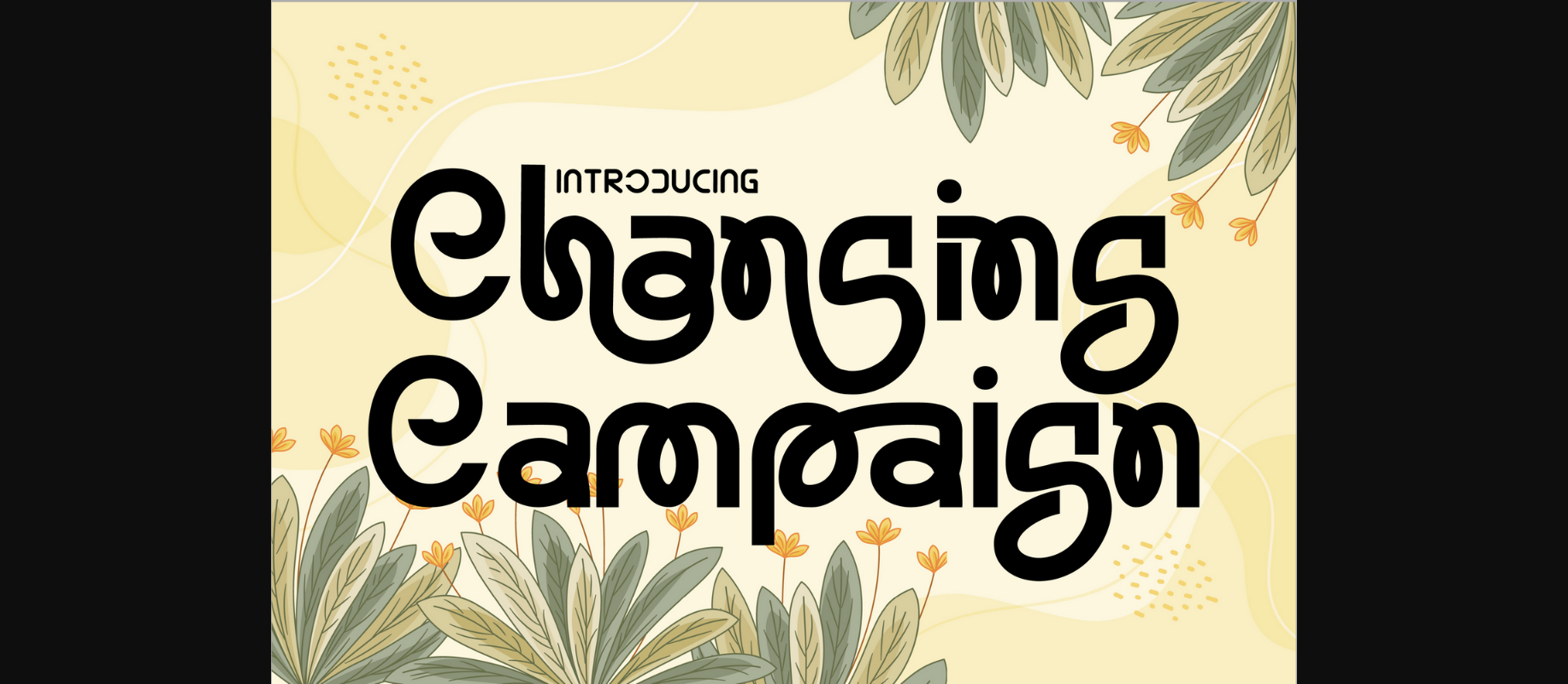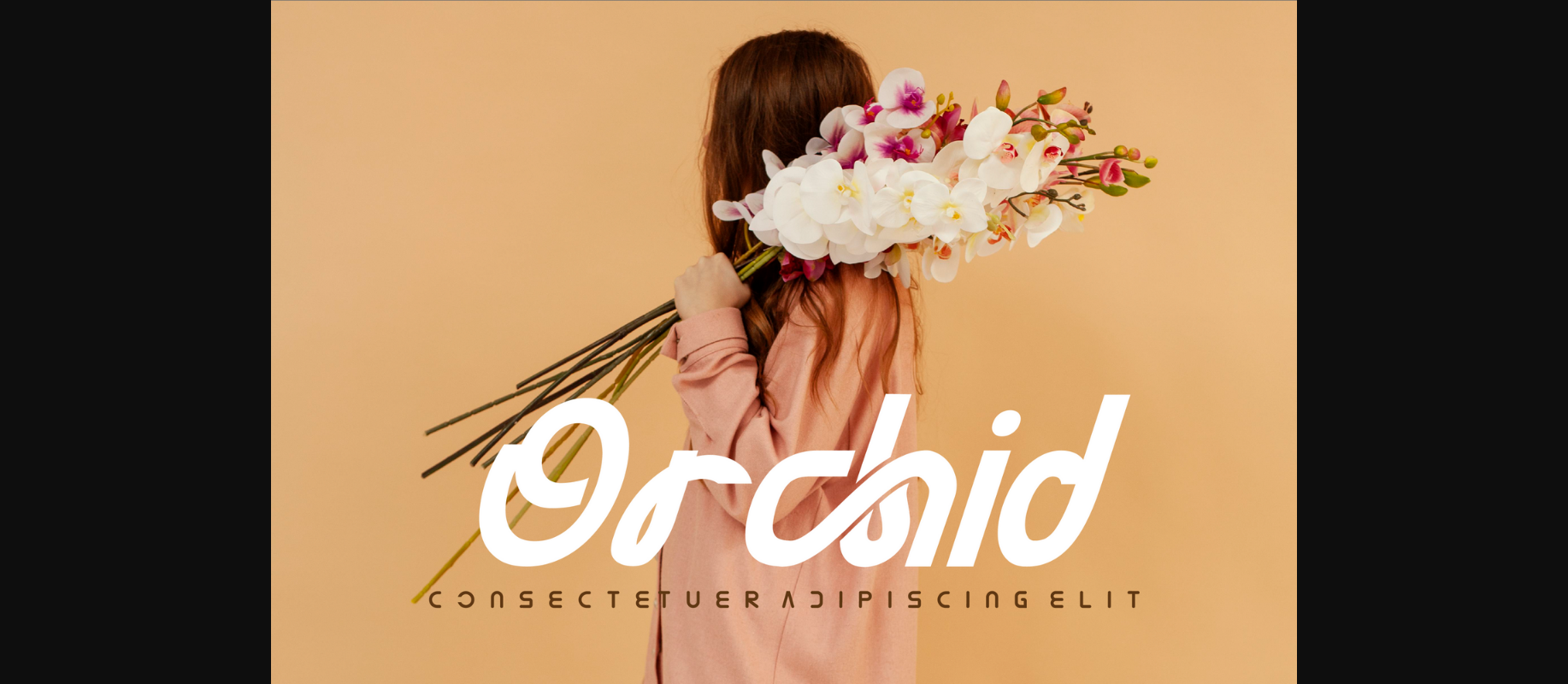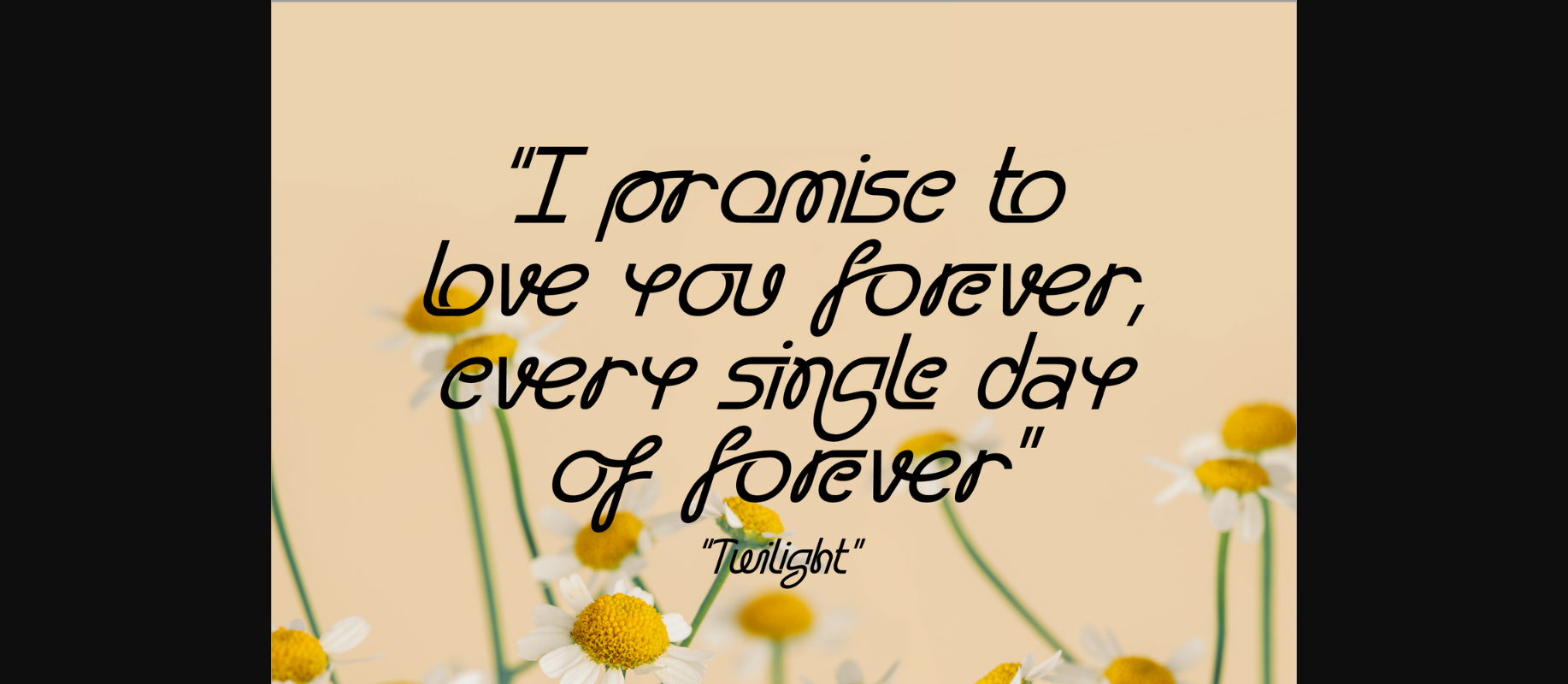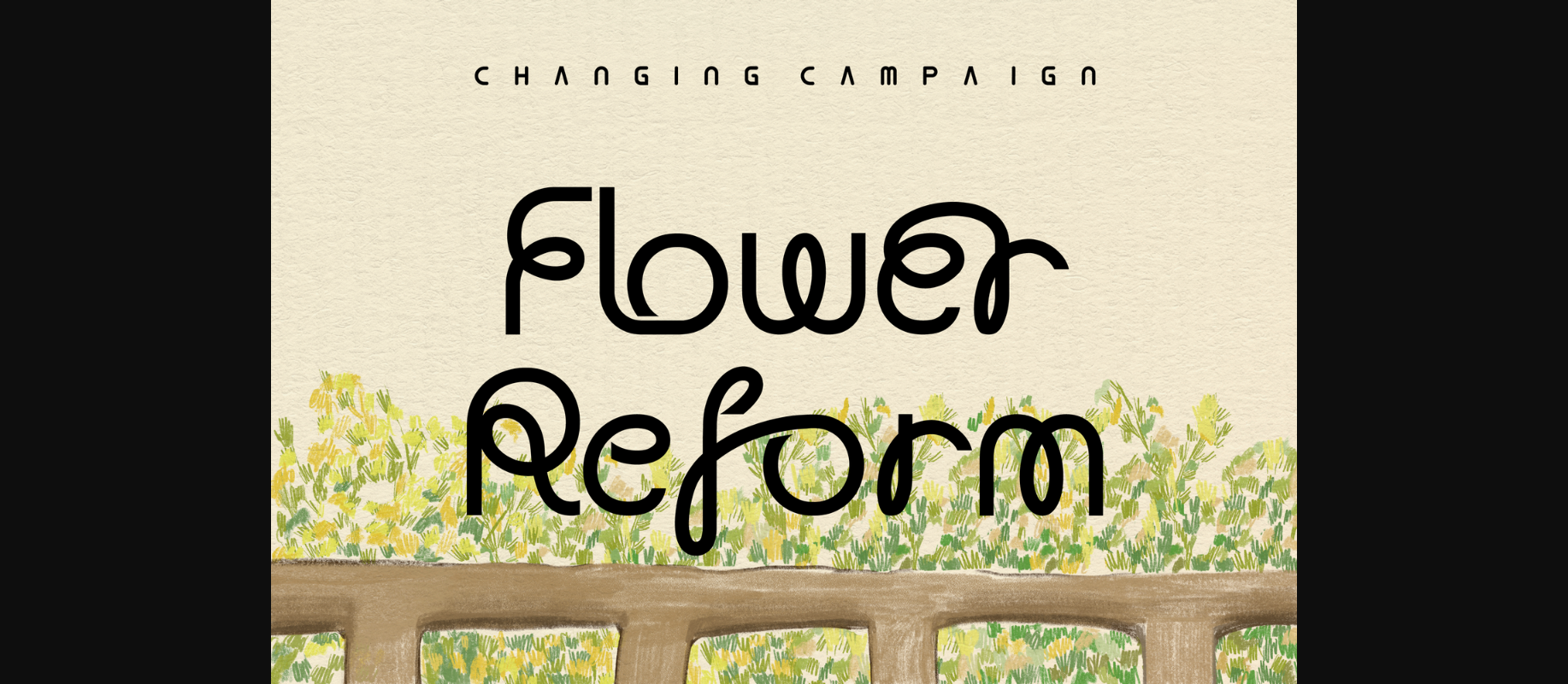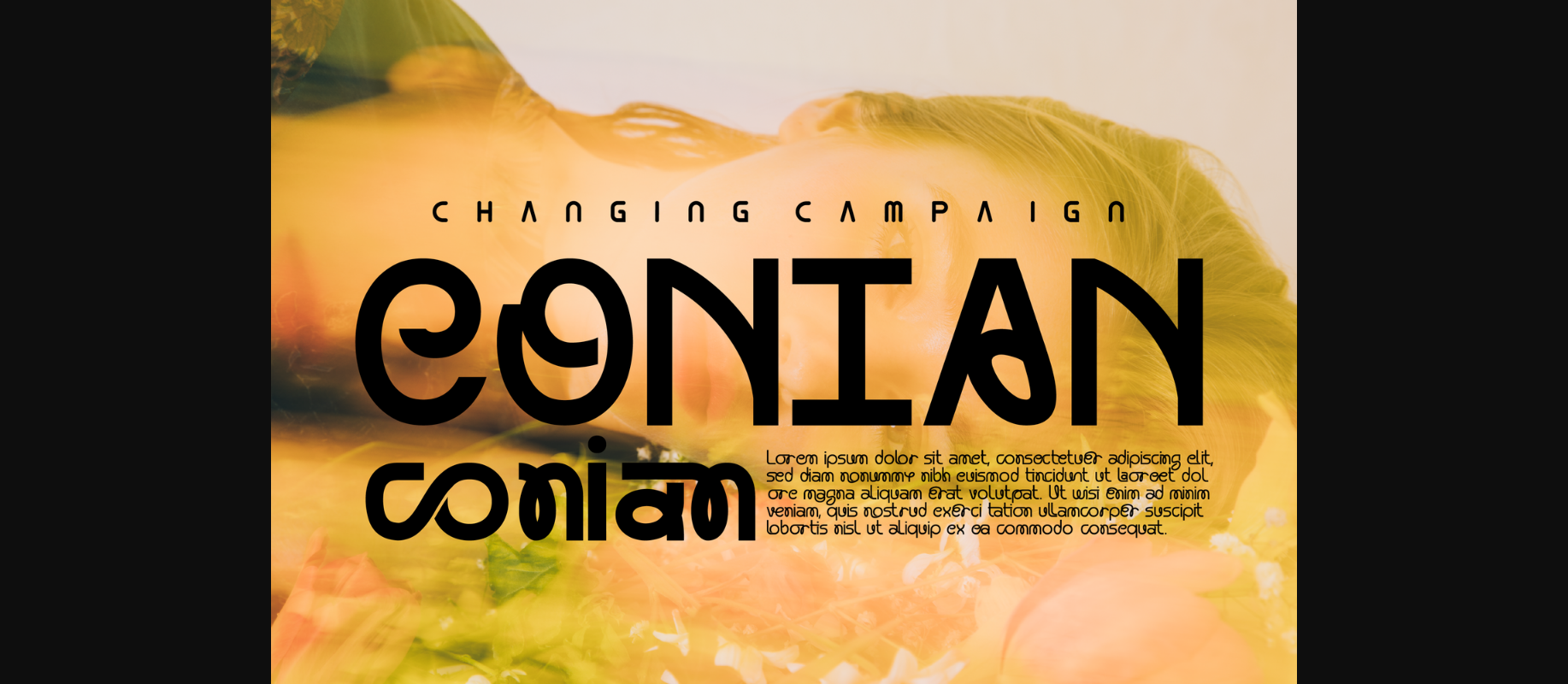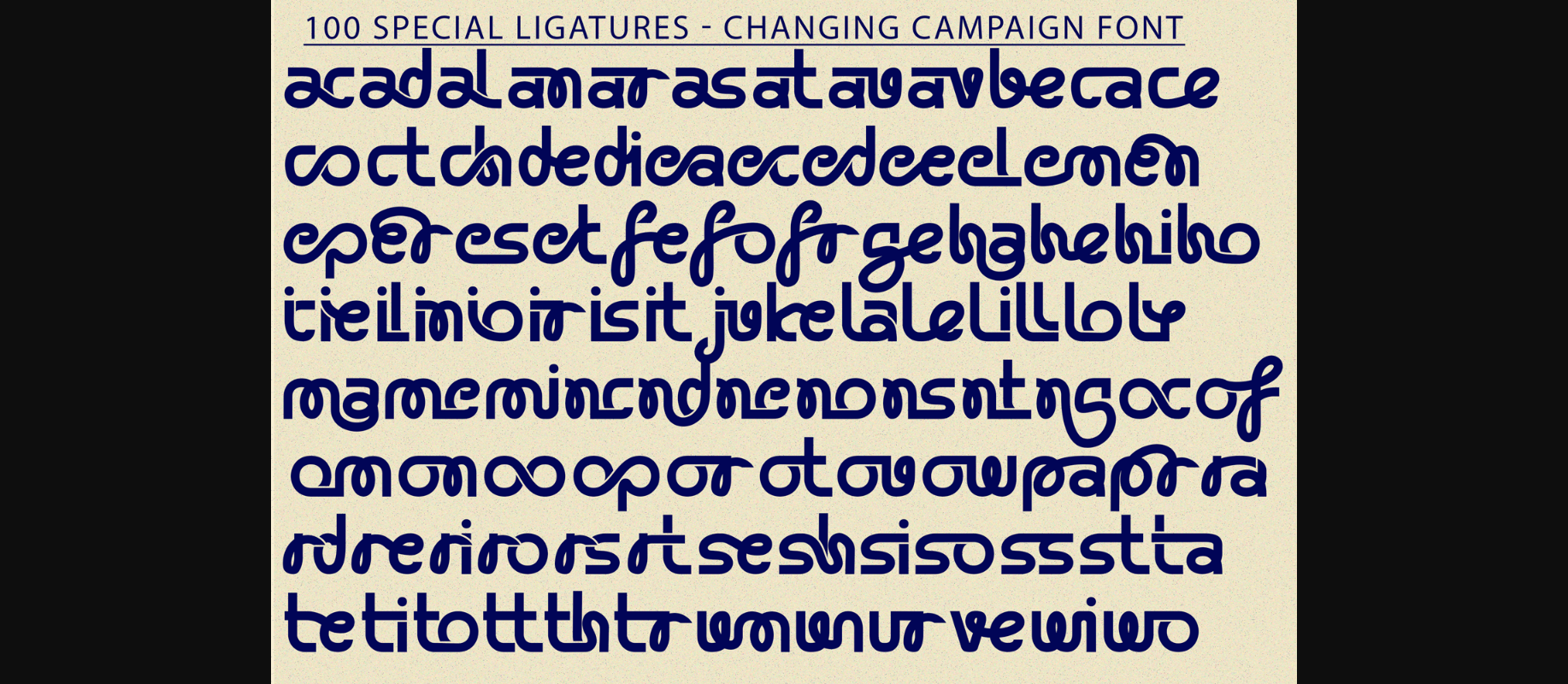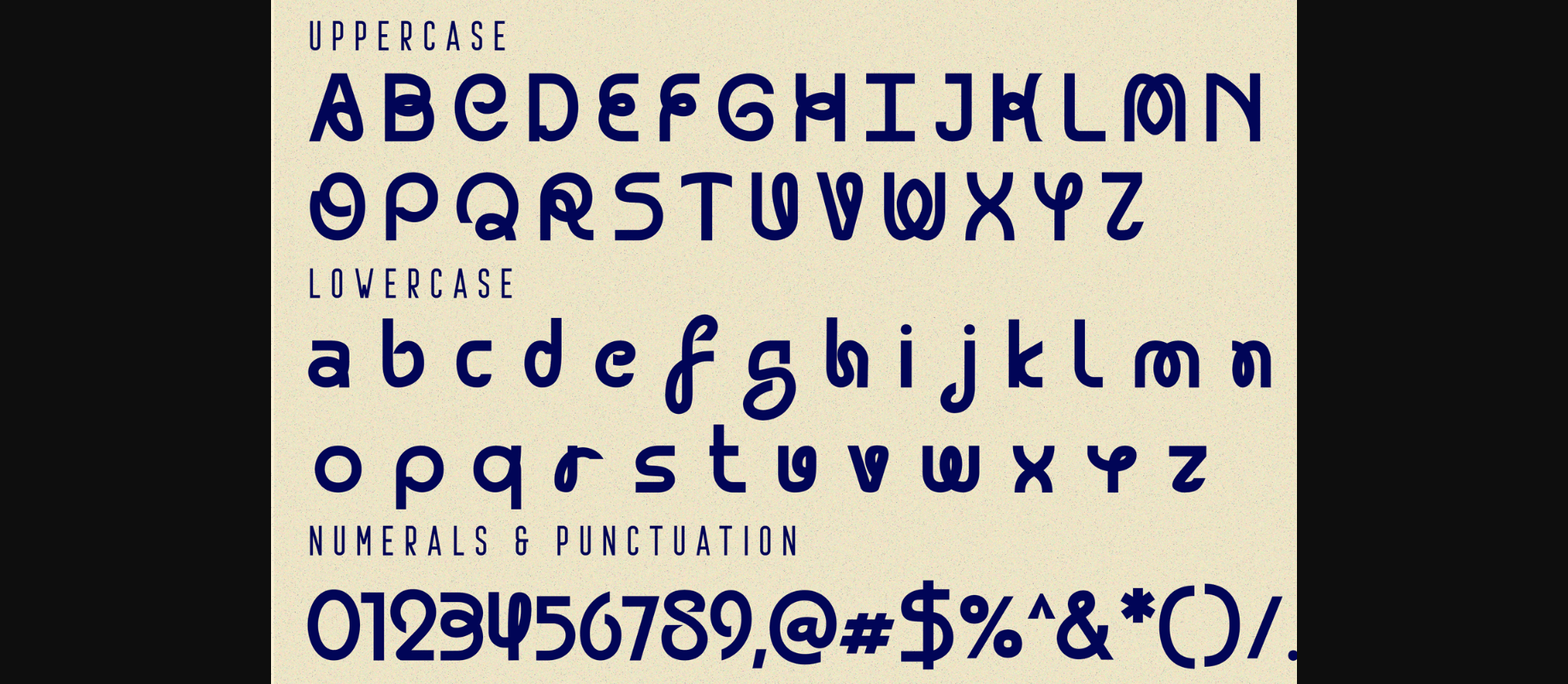
Changing Campaign Font
About Changing Campaign Font
Changing Campaign is a playful decorative display font. The doodle style and hand-drawn lettering inspire this geometric sans serif. With unique alternate characters you can combine it into awesome waves! Mix and match the upper and lowercase letters and throw in some memphis-style doodles to get exactly the look you want. Have fun!
Changing Campaign was built with OpenType features and includes 100 ligatures, alternate, numbers, punctuation, and it also supports other languages.